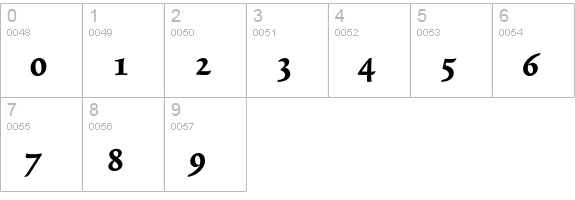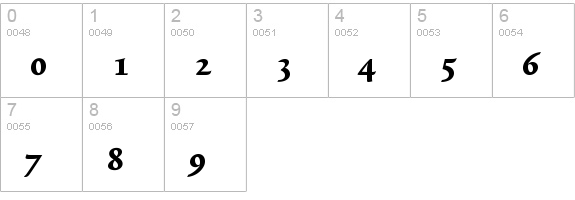
TriniteNo1-Bold is a strong, high-contrast variant in the TriniteNo1 typeface family \xE2\x80\x94 well suited to headlines, attention-grabbing titles, and strong calls-to-action.
TriniteNo1-Bold font is a stunning display typeface that effortlessly commands attention with its bold and powerful letterforms. Crafted with meticulous attention to detail, this font exudes a sense of strength and confidence, making it the perfect choice for headlines, logos, and any design project that requires a touch of boldness. Featuring clean lines and sharp edges, TriniteNo1-Bold font captivates the eye and leaves a lasting impression. Its strong and assertive presence is ideal for conveying a sense of authority and reliability, making it an excellent choice for corporate branding, editorial designs, and advertisements. With its versatile nature, TriniteNo1-Bold font seamlessly adapts to various design styles, from modern and minimalistic to bold and expressive. Its sleek and timeless aesthetics make it a versatile option for a wide range of design applications, ensuring that your projects will always stand out from the crowd. One of the most remarkable aspects of TriniteNo1-Bold font is that it is freely available to download at FontsMarket.com. This means that designers, creatives, and enthusiasts alike can easily access and incorporate this remarkable font into their work without any barriers. Its availability at FontsMarket.com ensures that anyone can enjoy the distinctive qualities of TriniteNo1-Bold font, allowing for unlimited creativity and design possibilities. Whether you're working on a web design, branding project, or print advertisement, TriniteNo1-Bold font will undoubtedly elevate your work to new heights. Its bold and impactful presence, coupled with its freely available download, makes it a must-have for any designer looking to make a lasting impression. So, why wait? Head over to FontsMarket.com and discover the endless possibilities that TriniteNo1-Bold font has to offer.